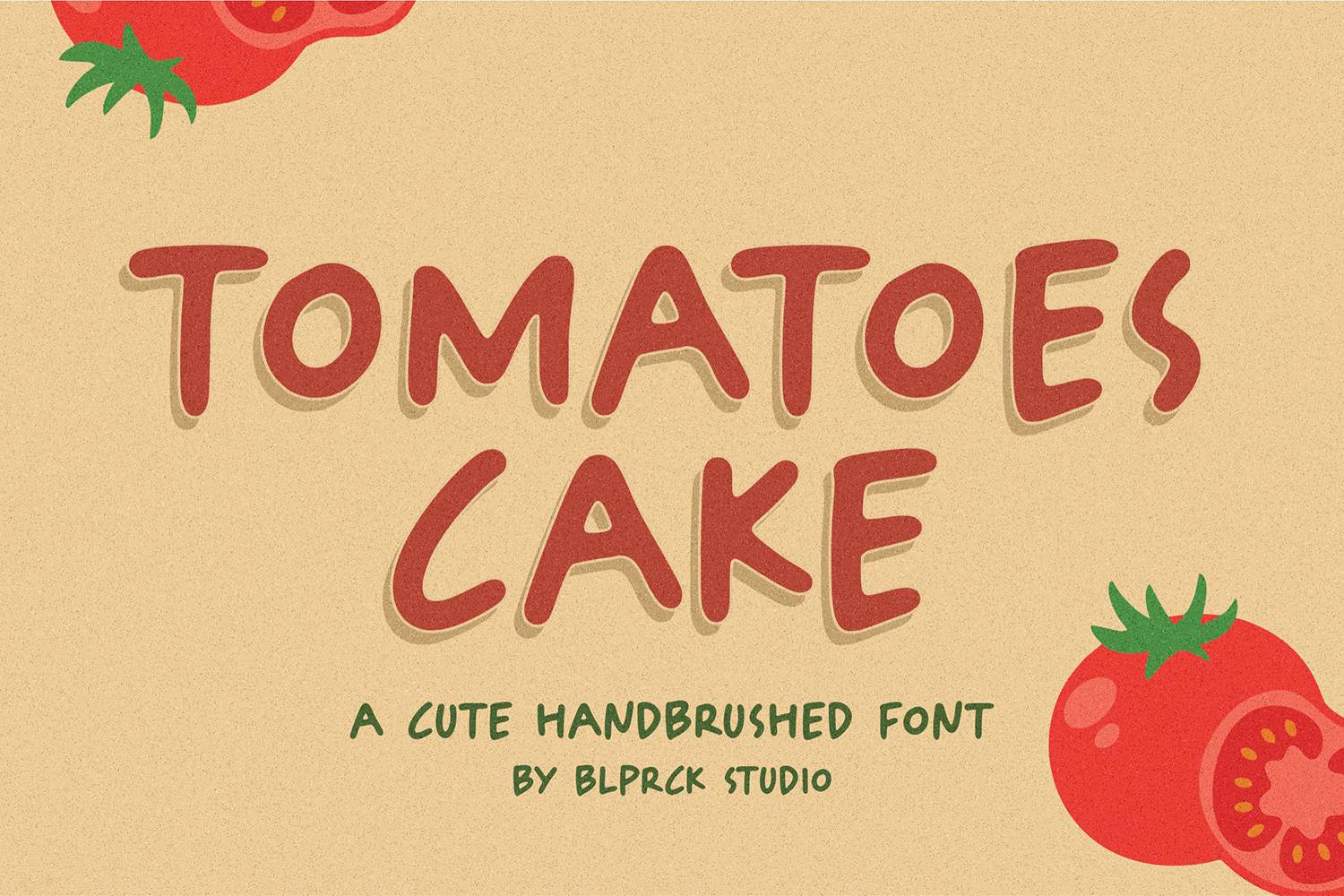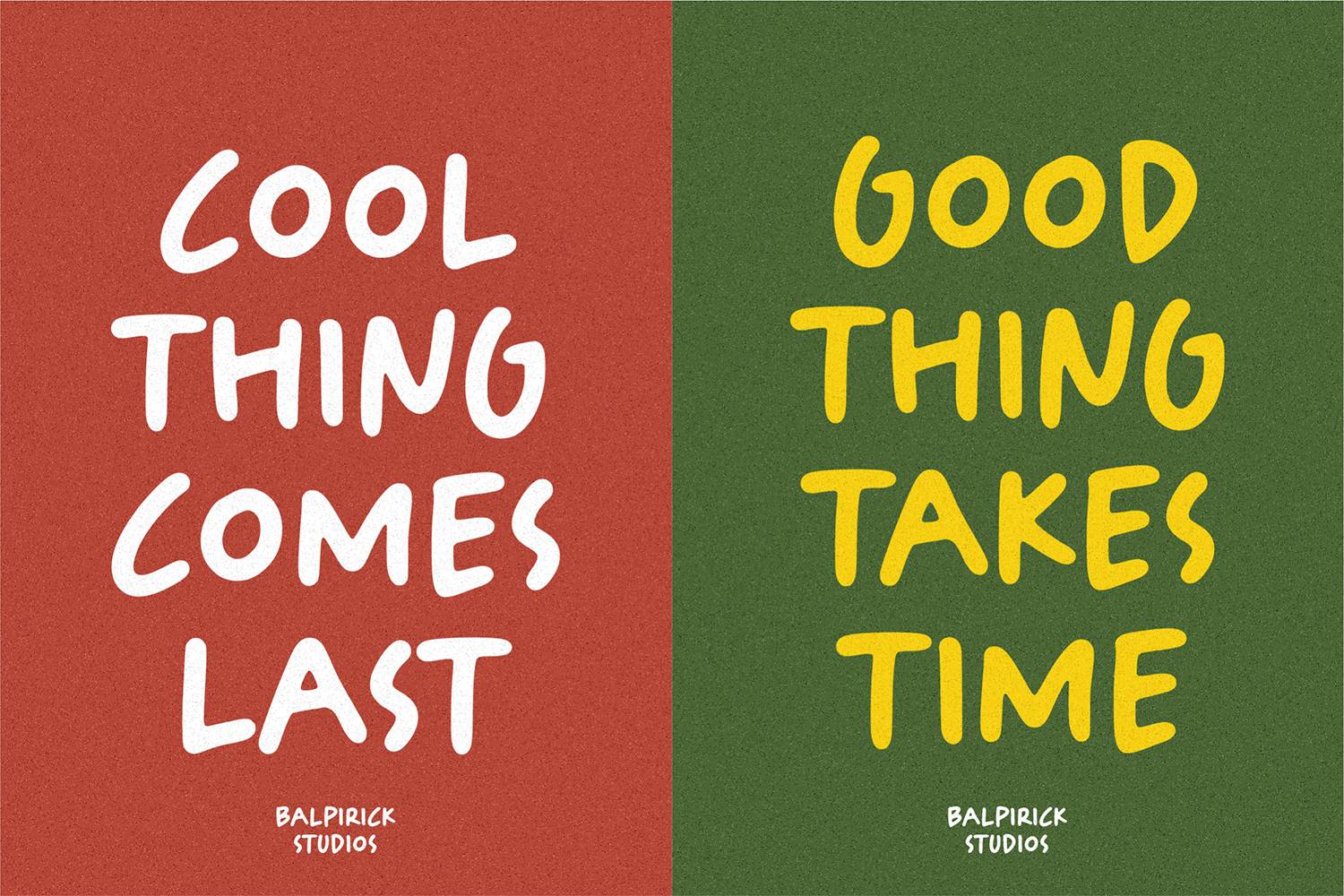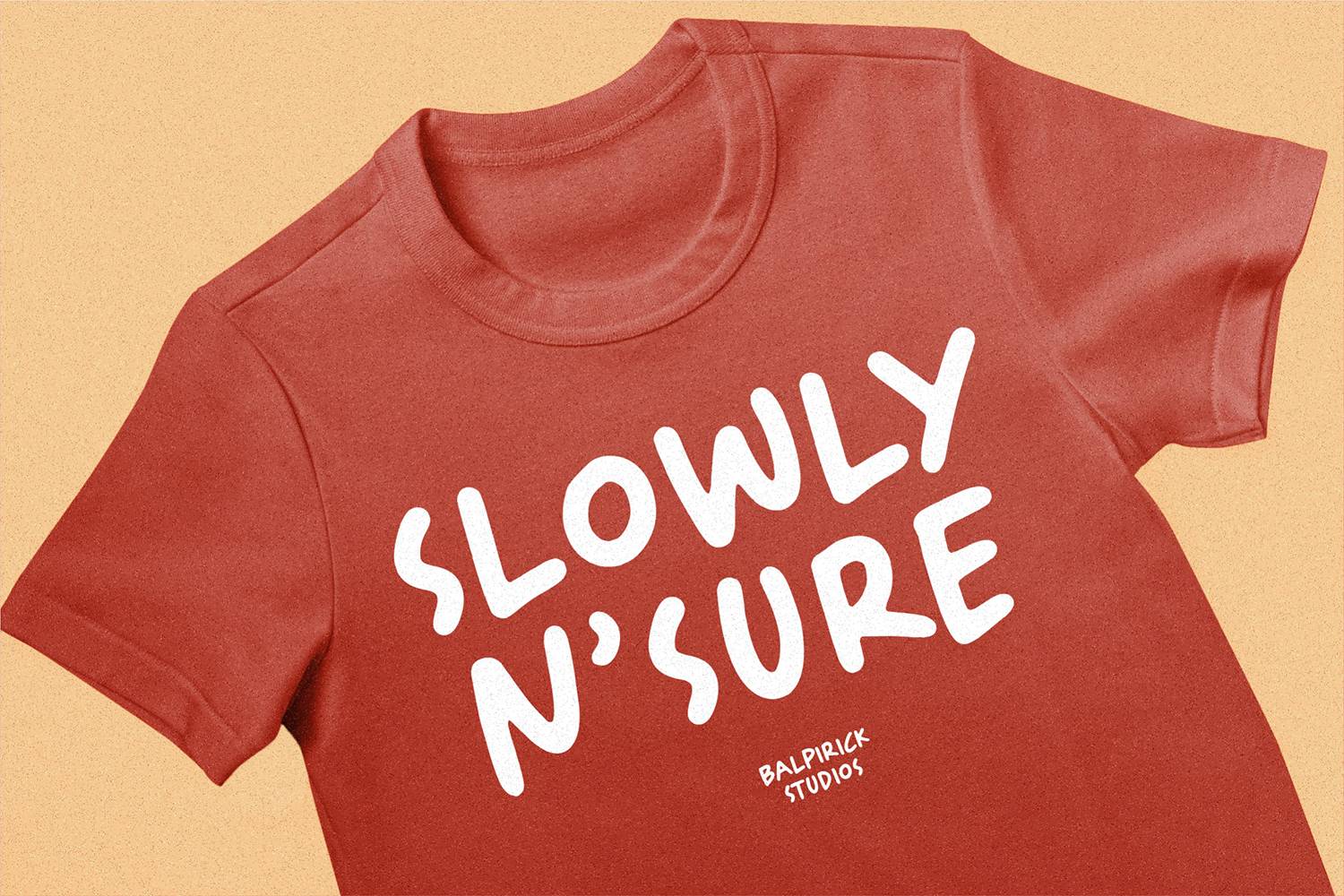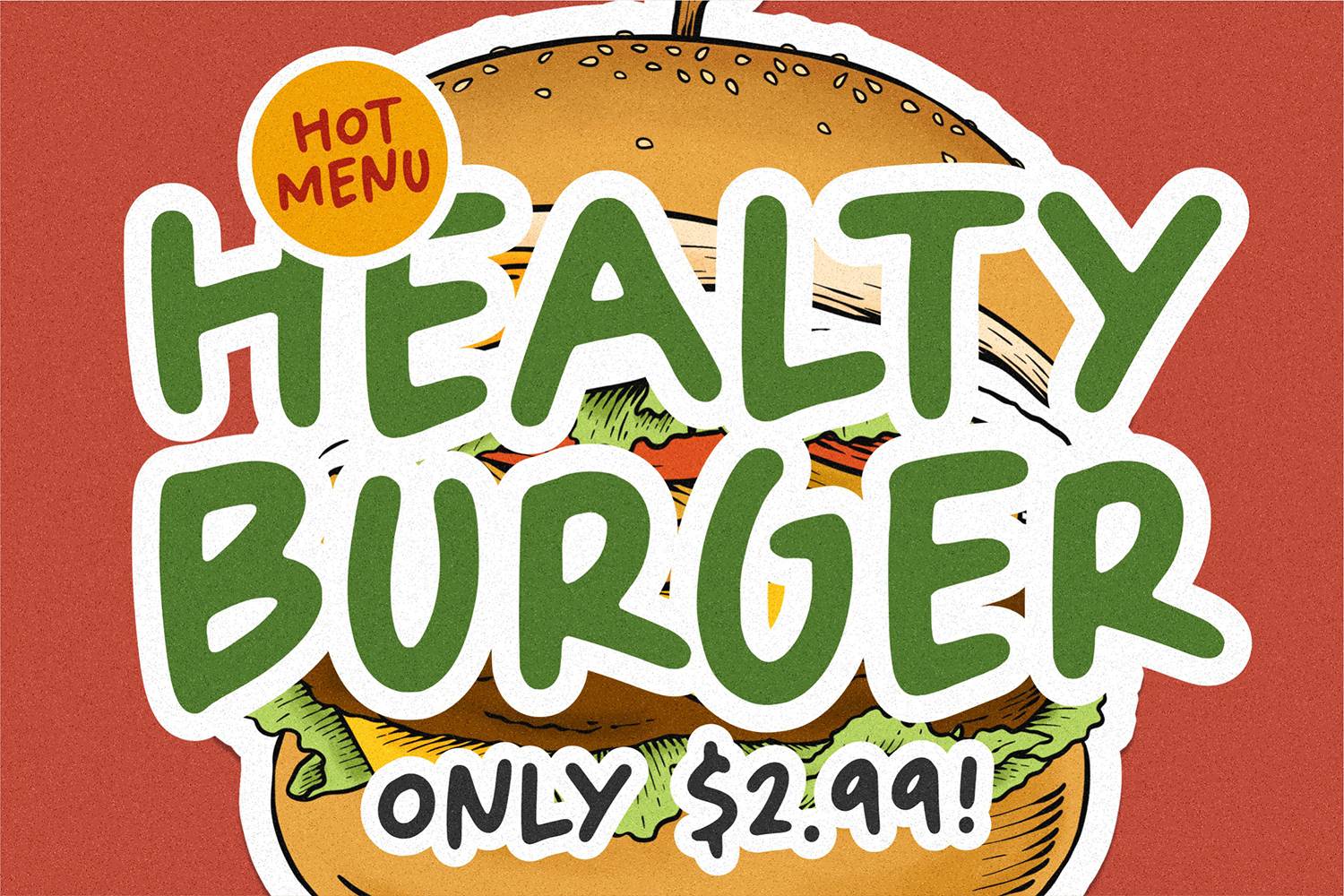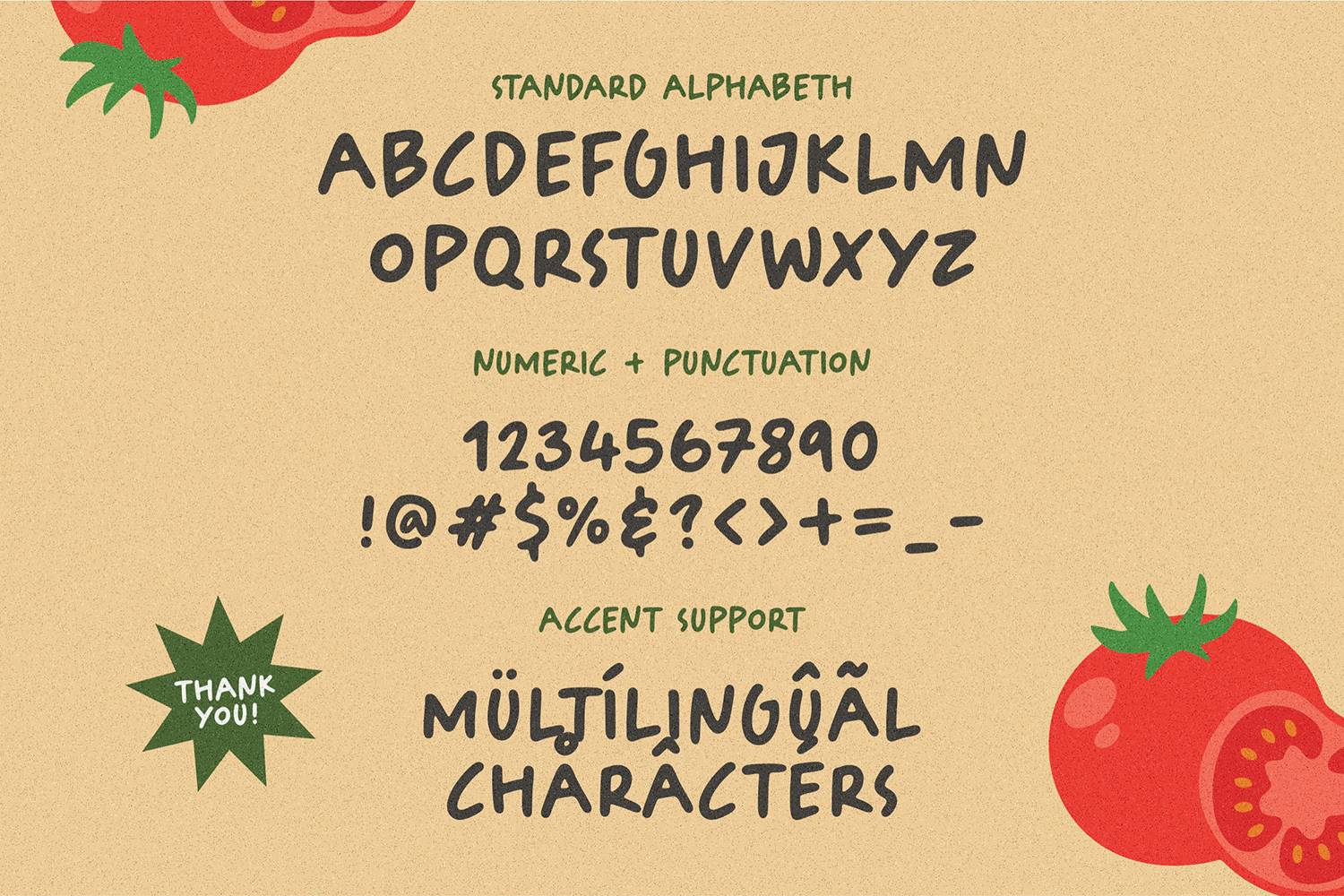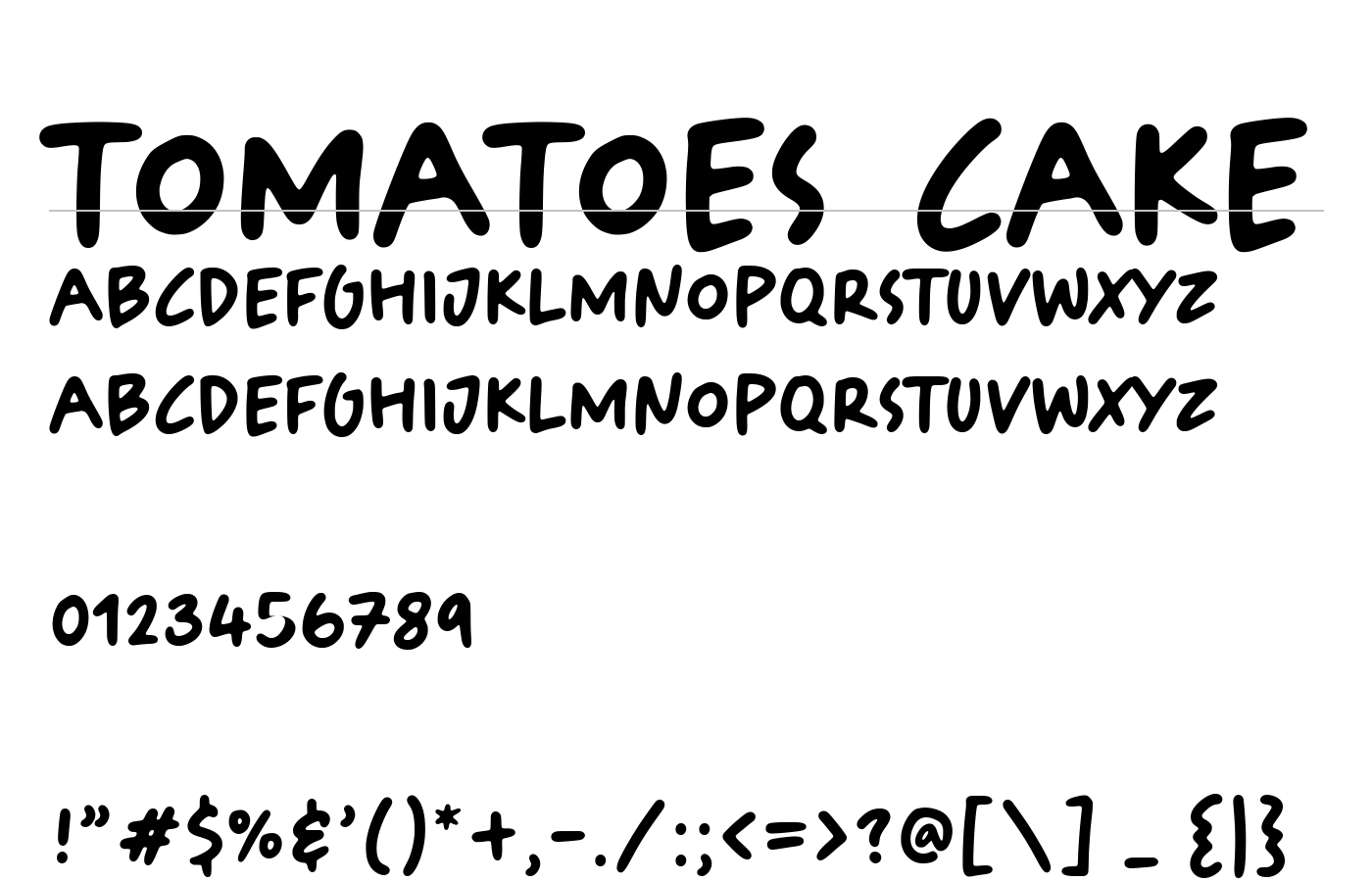
Tomatoes Cake is a playful and friendly sans serif font with a casual, hand-drawn feel. Its rounded strokes, moderate weight, and slightly irregular letterforms make it perfect for designs that want to convey warmth and approachability. This font works great for posters, children’s materials, and any creative project that benefits from an informal and cheerful vibe.
Tomatoes Cake Font
About Tomatoes Cake Font